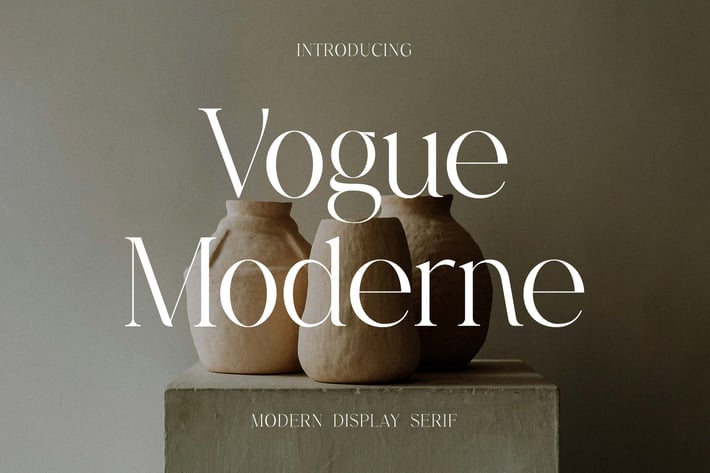
Vogue Modern Display Serif Font
Introducing our new product the name is Vogue Modern Display Serif Font. Vogue Modern Display Serif Font that feels beautiful classy, elegant, and modern. This font is perfectly suited for a wide variety of projects, such as signature, stationery, logo, wedding, typography quotes, magazine or book covers, website headers, clothing, branding, packaging design, and more. Also, fashion-related branding or editorial design displays both masculine and feminine qualities.